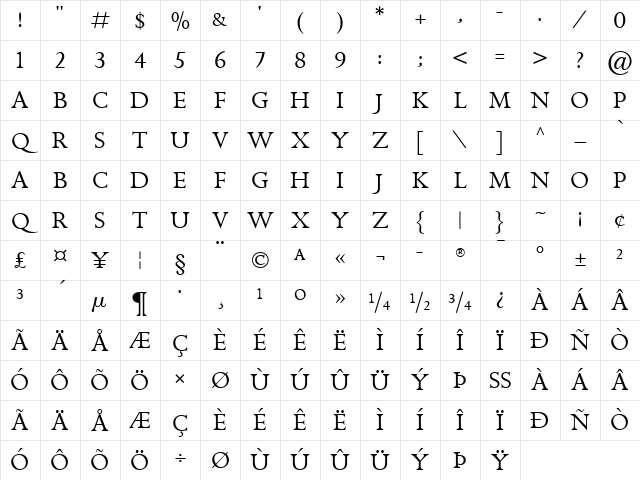
Complete Golden Cockerel Titling ITC Regular glyph index. Displaying only characters natively supported by Golden Cockerel Titling ITC Regular font.
Golden Cockerel Titling ITC is a composed and adaptable typeface that performs quietly and consistently across a wide range of design contexts.